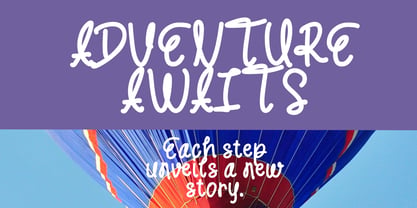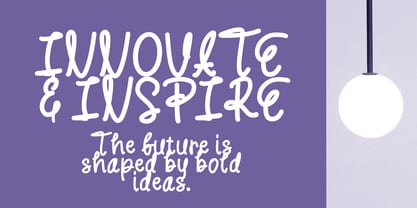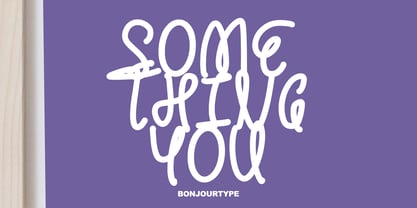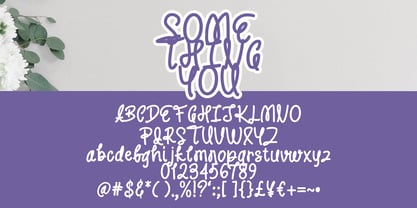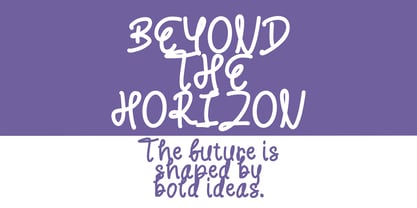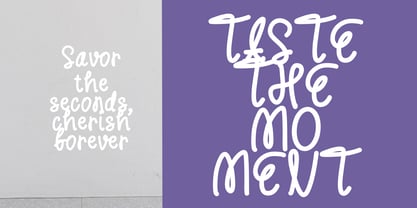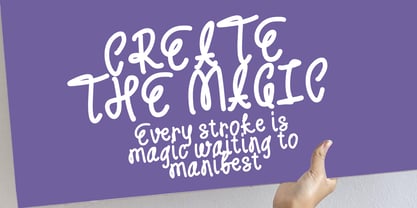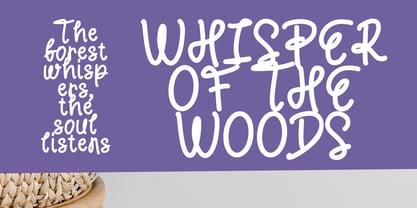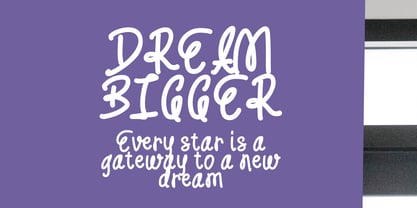
Something You
by BonjourType
The Something You Font Family was designed by Rachma and published by BonjourType. Something You contains 1 styles. More about this family
Something You is a playful handwritten font with a calm, cool, and modern feel. Its organic strokes and charming handmade style bring a sweet, cheerful touch to any creative project. Perfect for adding personality and warmth to your products, posts, and written works.
This font is ideal for book covers, presentations, product packaging, logos, quotes, posters, and social media content. It also works beautifully for fashion branding, wedding invitations, clothing designs, stickers, and text overlays on image backgrounds. With its friendly and expressive appearance, Something You offers creative flexibility for a wide range of modern and fun design projects.
Designers: Rachma
Foundry: BonjourType